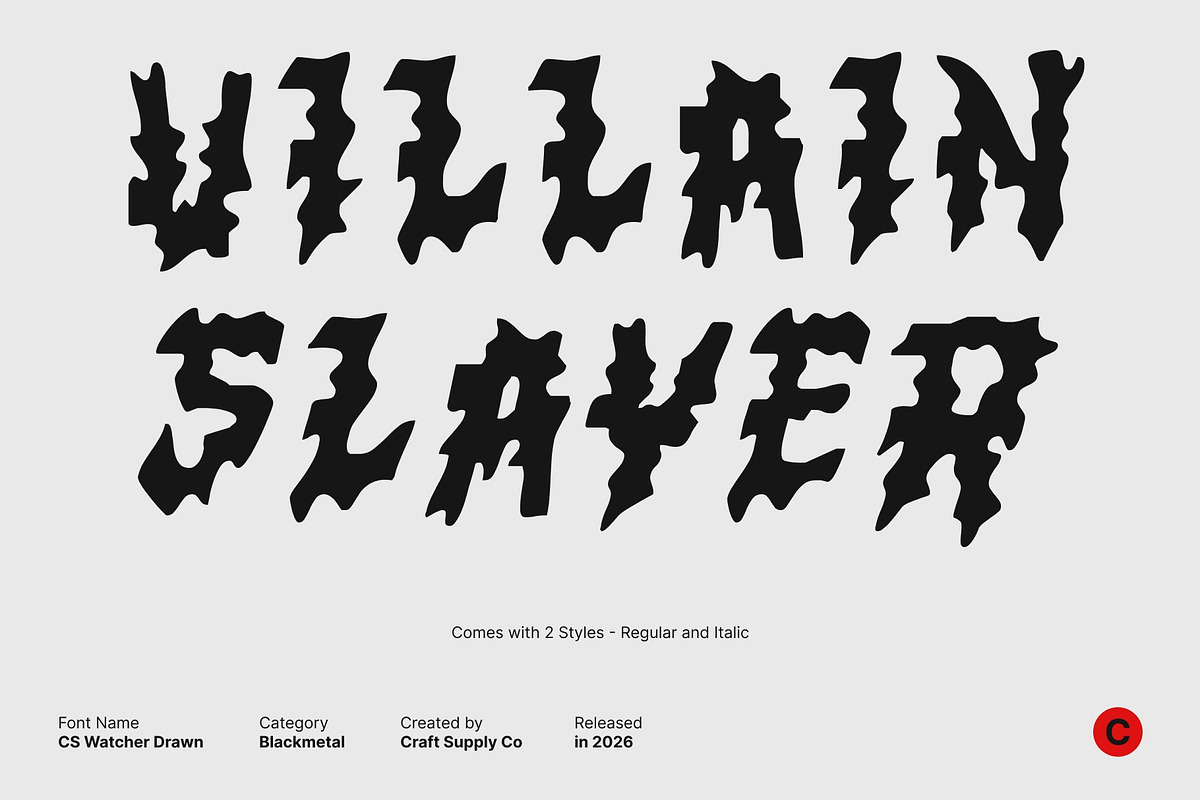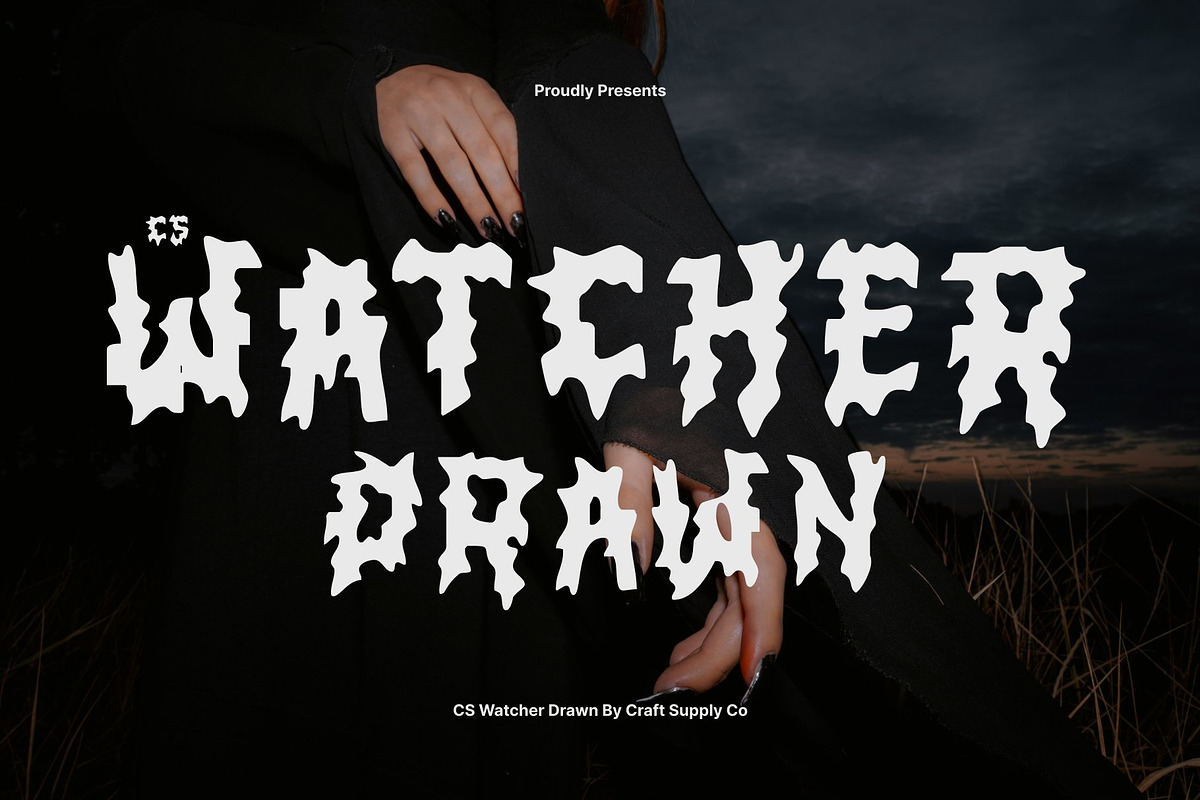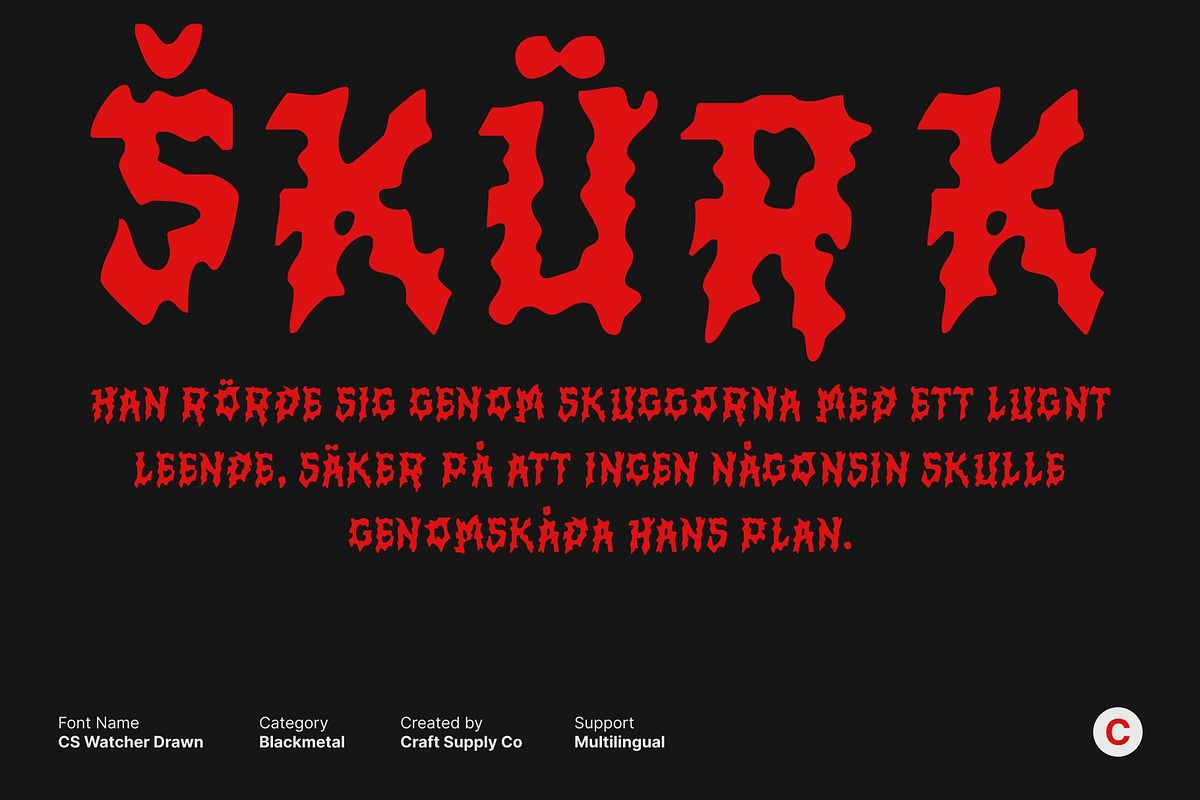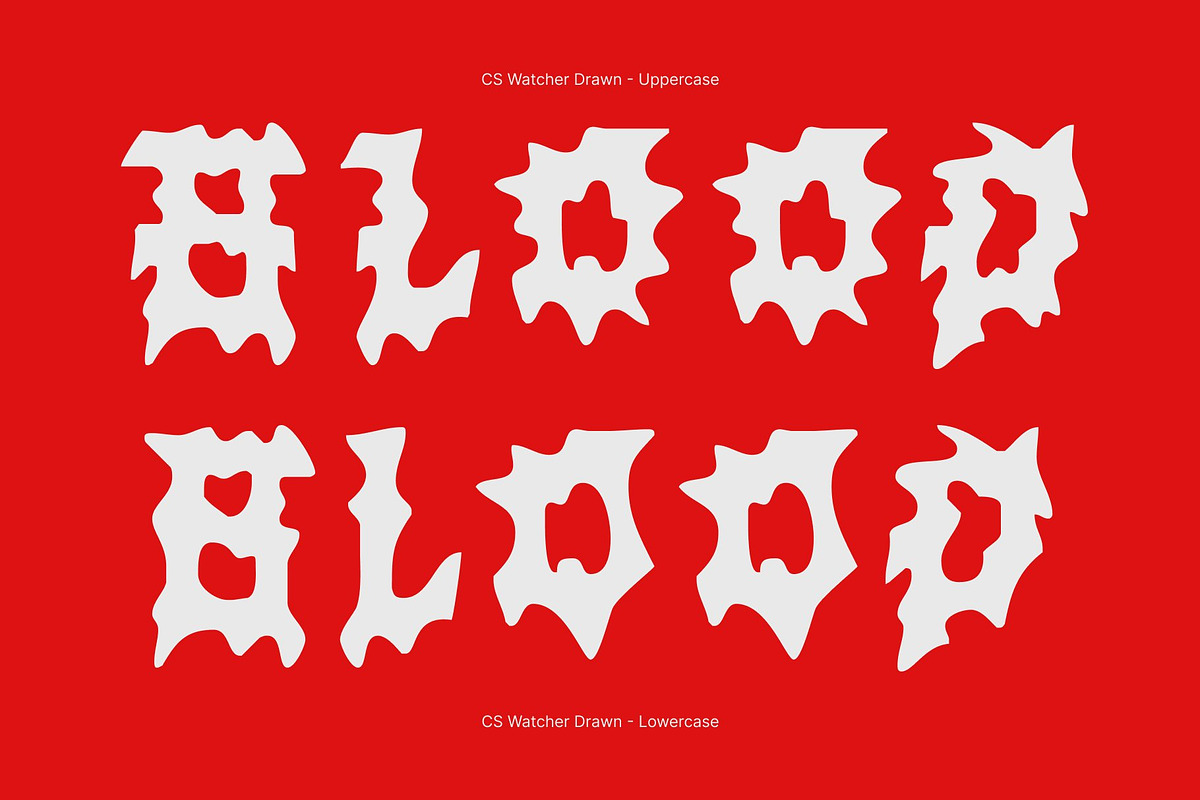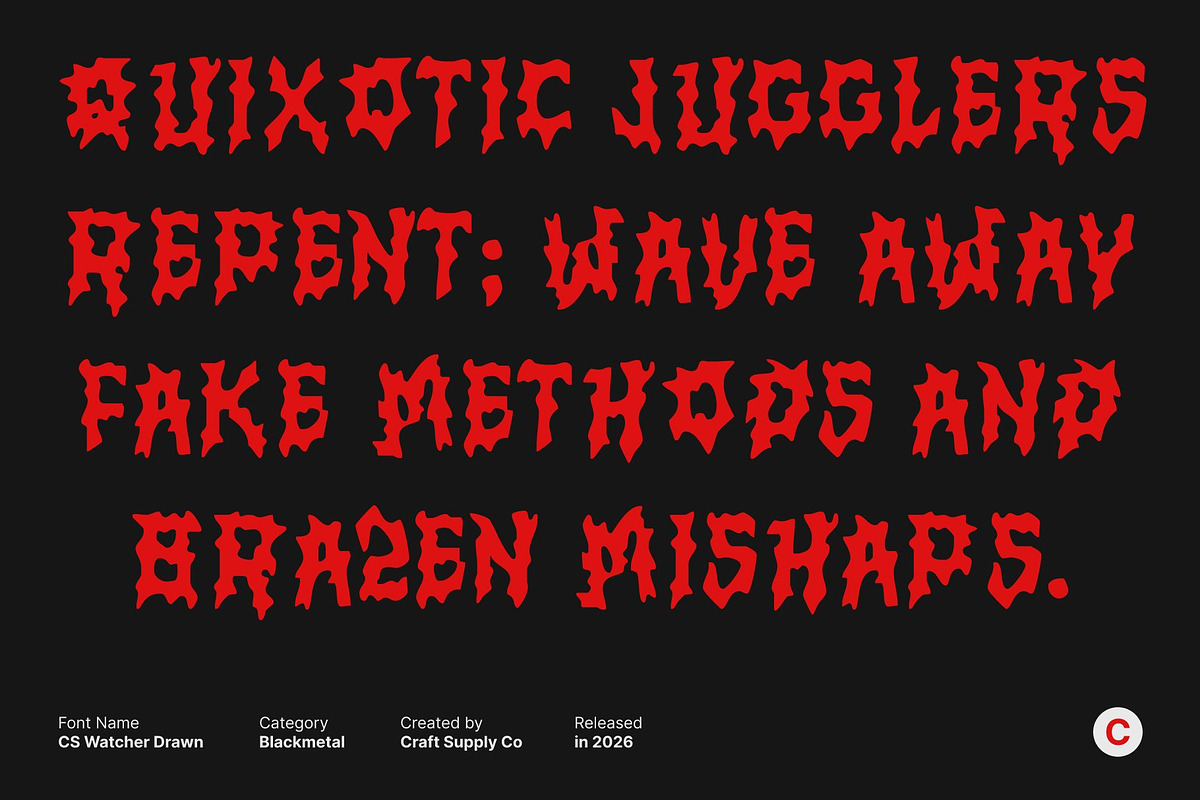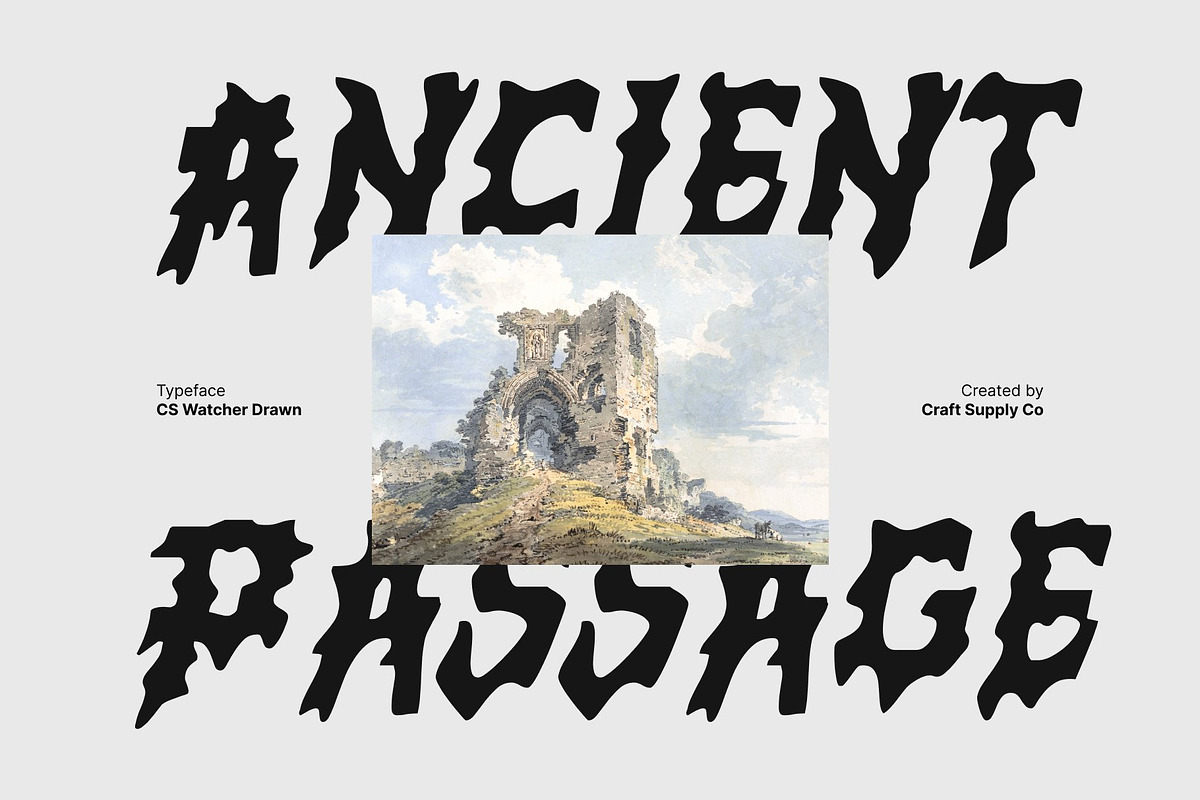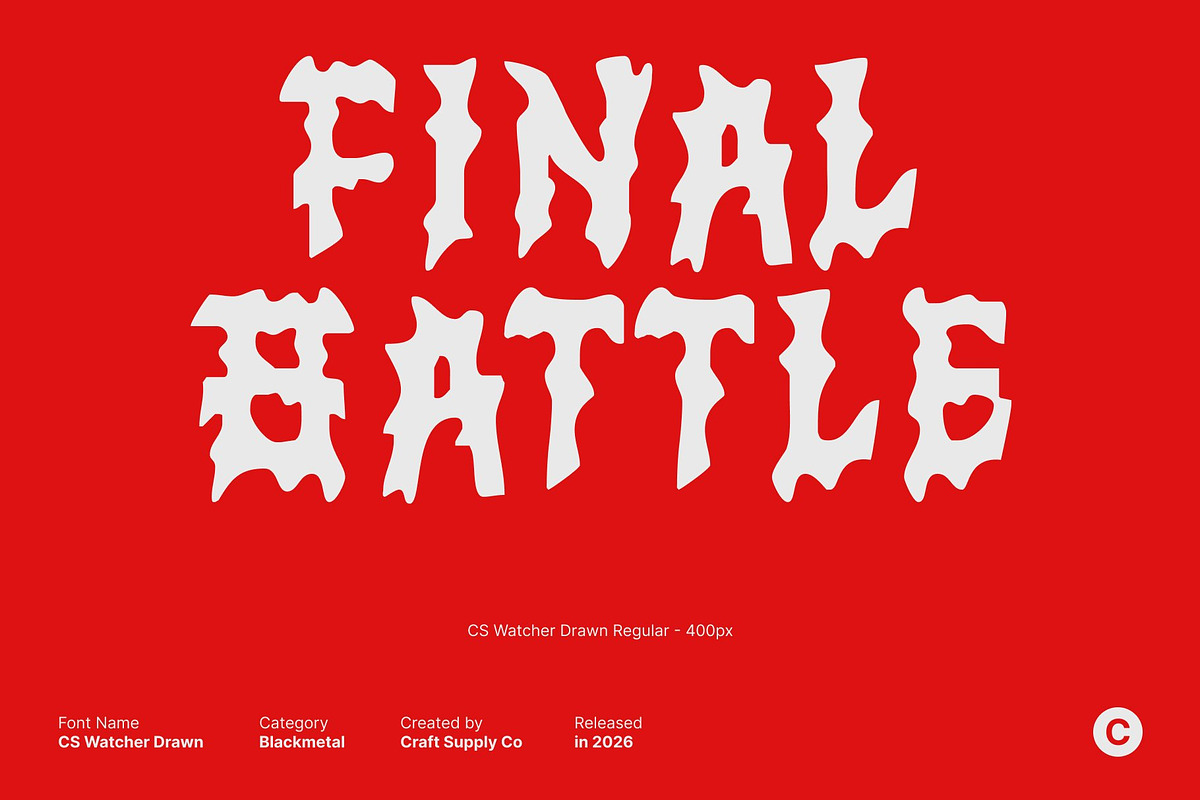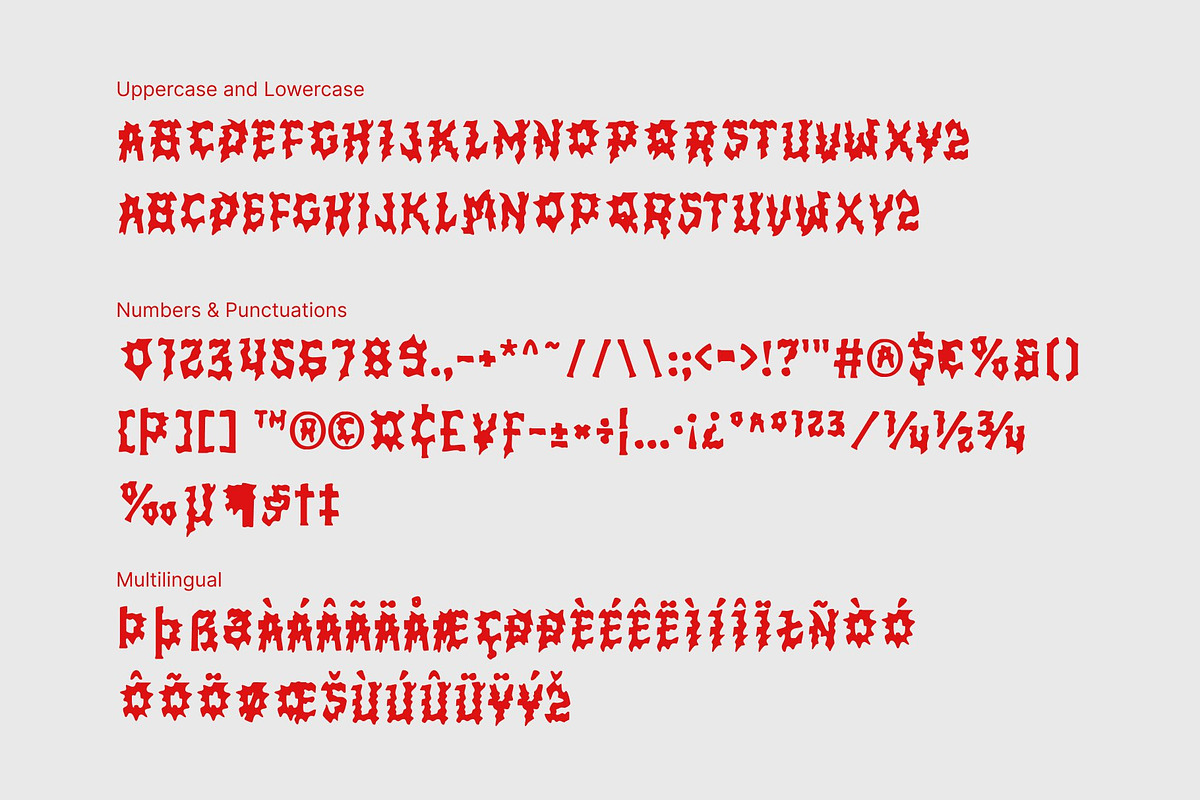
CS Watcher Drawn
CS Watcher Drawn – Black Metal Display Font Where Chaos Meets Raw Power
Forged in Darkness with Relentless Energy This is a black metal display font born from chaos and intensity. Defined by jagged spikes, brutal strokes, and rough, irregular edges, it radiates aggression and raw emotion. The drawn effect amplifies its feral nature, giving every letter an untamed, handcrafted feel that echoes the darkness of extreme music culture.
Aggressive Letterforms with Distinct Identity** Each character carries a wild, unrestrained rhythm, shaped by sharp angles and uneven forms. These chaotic details create constant visual tension and movement, perfectly capturing the rebellious spirit of underground metal aesthetics. Nothing feels polished or restrained every imperfection becomes part of its identity.
Perfect for Extreme and Edgy Visuals Designed for maximum impact, this font excels in band logos, album artwork, music posters, dark-themed apparel, and promotional visuals. Its gritty texture and brutal presence make it ideal for projects that demand emotional intensity, defiance, and unmistakable attitude.
A Visual Anthem of Darkness and Freedom More than just typography, this font is an expression of rebellion and artistic force. It embraces imperfection, chaos, and power transforming text into a visceral experience. Use it to create designs that are not only seen, but felt, embodying darkness, strength, and unapologetic individuality.